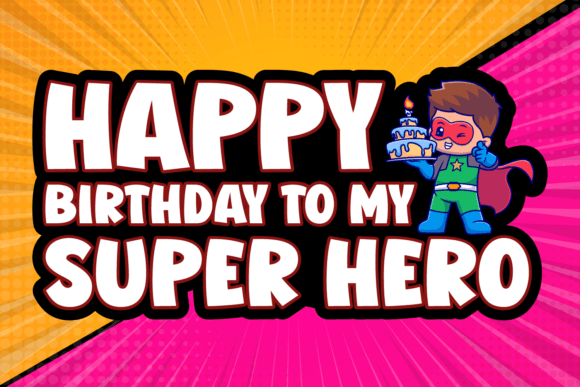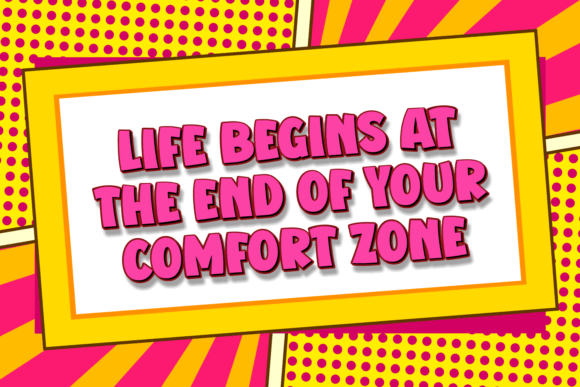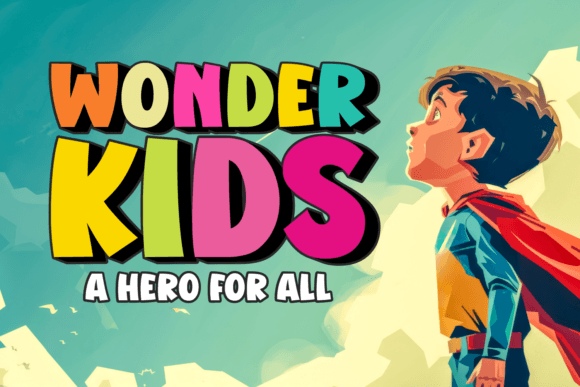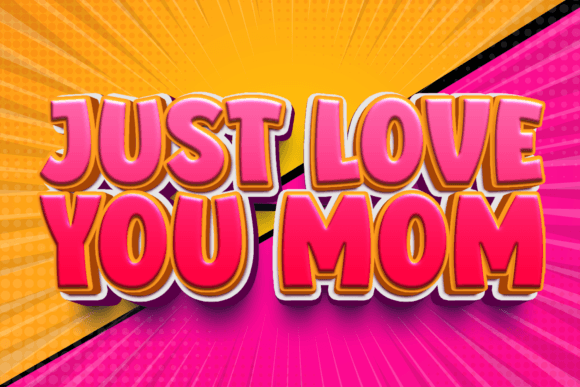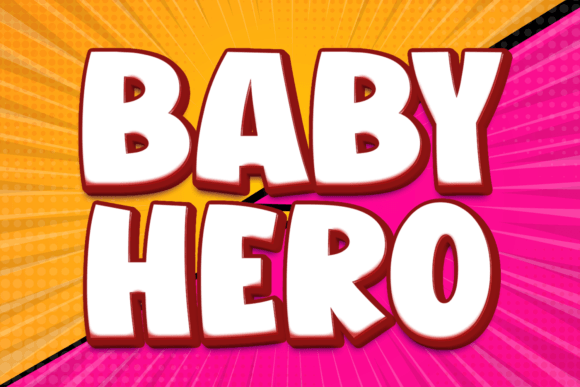
Baby Hero Font: The Perfect Bold Comic Font for Your Creative Projects
Are you a designer or crafter looking for a font that can add a touch of playfulness and boldness to your creative projects? Look no further than the Baby Hero font. This bold comic font is perfect for headlines, titles, and captions, where its bold letterforms can make a strong visual impact. In this article, we’ll take a closer look at the Baby Hero font, its features, and how you can use it to elevate your designs.
What is Baby Hero Font?
Baby Hero font is a bold comic font designed to make a statement. Its playful and bold letterforms make it perfect for use in headlines, titles, and captions. The font is designed to be highly readable, even at smaller sizes, making it versatile for use in a variety of applications, from posters and banners to advertisements and digital media.
Key Features of Baby Hero Font
- Bold Letterforms: The Baby Hero font features bold letterforms that are designed to make a strong visual impact. The font is perfect for headlines, titles, and captions where you want to grab the attention of your audience.
- Playful Design: The font has a playful design that is perfect for creative projects that require a touch of fun and whimsy. The font is ideal for designs that require a youthful and energetic feel.
- High Readability: Despite its bold and playful design, the Baby Hero font maintains high readability even at smaller sizes. This makes it perfect for use in a variety of applications, from posters and banners to digital media.
The Baby Hero font is versatile and can be used in a variety of creative projects. Here are some ideas on how to use the font:
- Posters and Banners: Use the Baby Hero font to create eye-catching posters and banners that grab the attention of your audience.
- Advertisements: The font is perfect for use in advertisements where you want to make a strong visual impact.
- Digital Media: Use the Baby Hero font in your digital media, such as social media graphics, videos, and presentations.
- Crafting Projects: The font is also perfect for use in crafting projects, such as scrapbooking, card making, and DIY projects.
There are many fonts available that offer similar features to the Baby Hero font. So, why choose Baby Hero? Here are a few reasons:
- Unique Design: The Baby Hero font has a unique design that sets it apart from other fonts. Its bold and playful letterforms make it perfect for creative projects that require a touch of fun and whimsy.
- High Quality: The font is designed to be high-quality and versatile, making it perfect for use in a variety of applications.
The Baby Hero font is a bold comic font that is perfect for creative projects that require a touch of playfulness and boldness. Its bold letterforms, playful design, and high readability make it versatile for use in a variety of applications. Whether you’re a designer or crafter, the Baby Hero font is a great addition to your font collection. So, why not give it a try and see how it can elevate your designs?